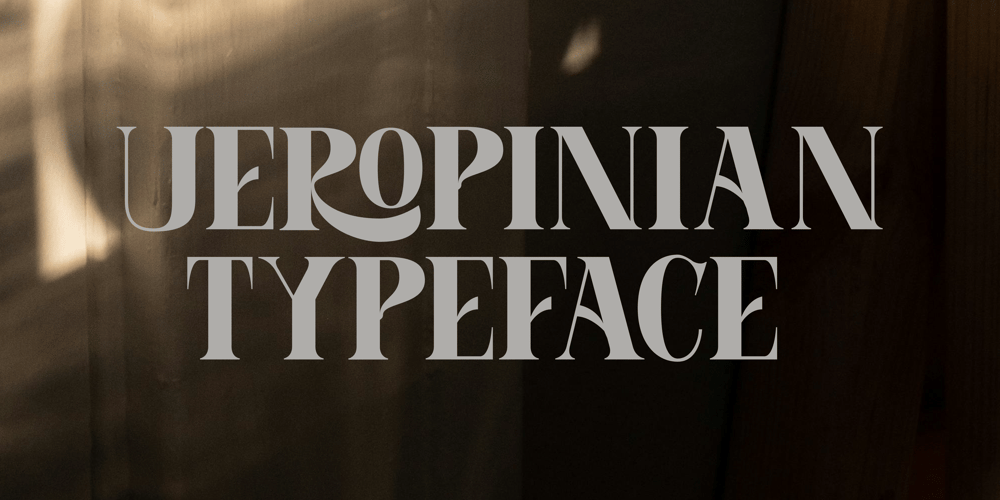
UEROPINIAN Font Family was designed by Syaiful Rizal Muhaimin and published by Ameenatype. UEROPINIAN contains 2 styles and family package options. The serif display font combines elegant serifs with bold and distinctive letterforms, making it perfect for headlines, titles, and other large-scale applications. Its refined details and subtle curves add a touch of sophistication to any design, while its increased contrast between thick and thin strokes ensures maximum visibility and impact. Whether used in print or digital media, the serif display font commands attention and exudes timeless charm, making it a versatile choice for projects requiring a touch of classic elegance.